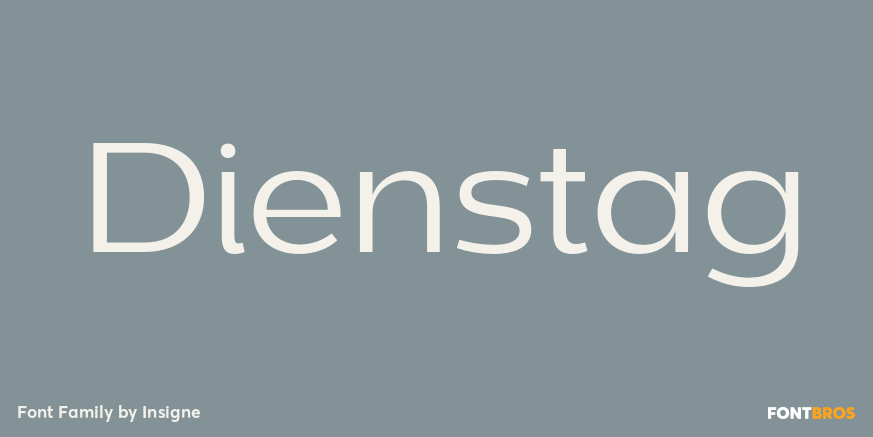
Dienstag
Dienstag is an extended sans-serif and a new companion to insigne\’s popular Montag family. Dienstag is a bit more formal than its predecessor as it lacks Montag\’s rounded terminators. Dienstag originally included four different weights, and this was…